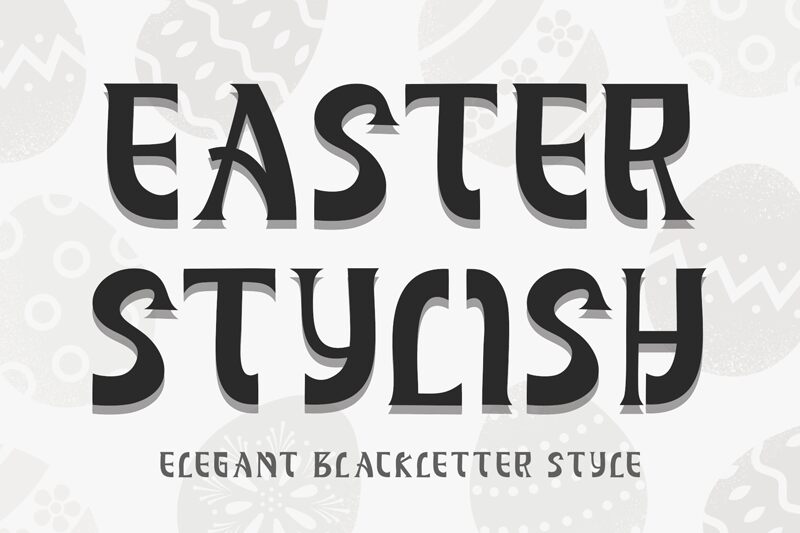
Easter Stylish font by Yoga Letter is a free fancy font with gothic influence and dramatic flair. Featuring a strong visual presence, the typeface combines a historical feel with a modern twist for a recognizable design. It will make an impactful impression with intricate details in a fluent-looking style.
Easter Stylish font is suitable for branding, impactful headlines, and decorative displays. Try it in logo design, packaging design, magazine covers, posters, signage, sports team branding, and retail branding. The font is also excellent to decorate print-outs like flyers, brochures, and invitations.